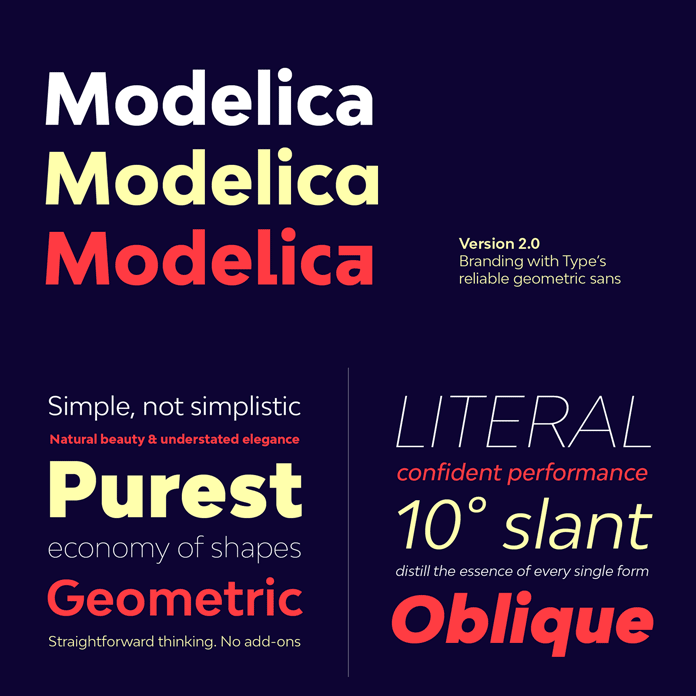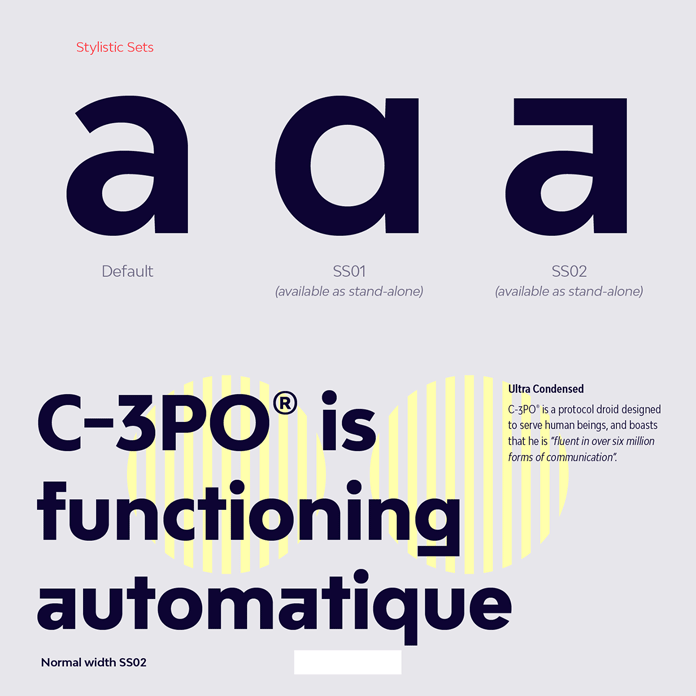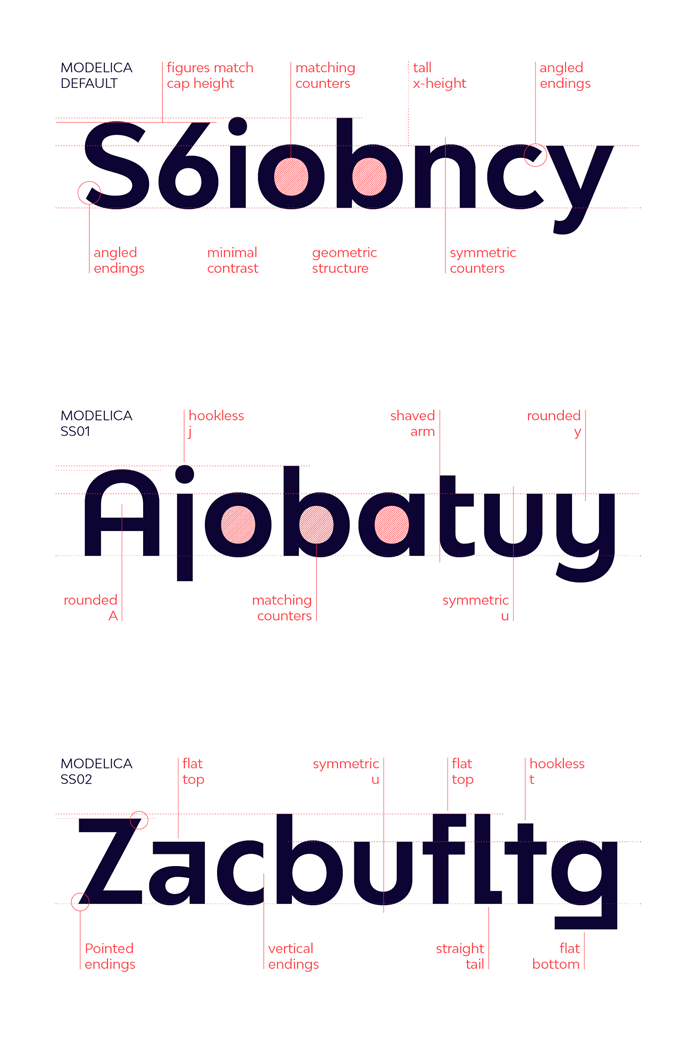
Bw Modelica, a geometric and versatile sans serif font family for multi purpose.
Designed in 2016 by Alberto Romanos for his own digital foundry called ‘Branding with Type’, Bw Modelica is a geometric sans serif font family with a sturdy but yet versatile appearance. Due to its clean design as well as large x-height, the typeface is a great choice for both headlines and texts. Equipped with 64 styles in total, this modern family has been created for professional needs. Read more about all features below or click on the following link.
The Bw Modelica font family comes with four widths, each containing eight weights plus matching true Italic versions. In addition to the default letters, the family is equipped with two stylistic sets in order to give you more expressive options. Please note, SS01 and SS02 are also available as stand-alone font files. For further information on all features, options, widths and weights, please follow the link below.